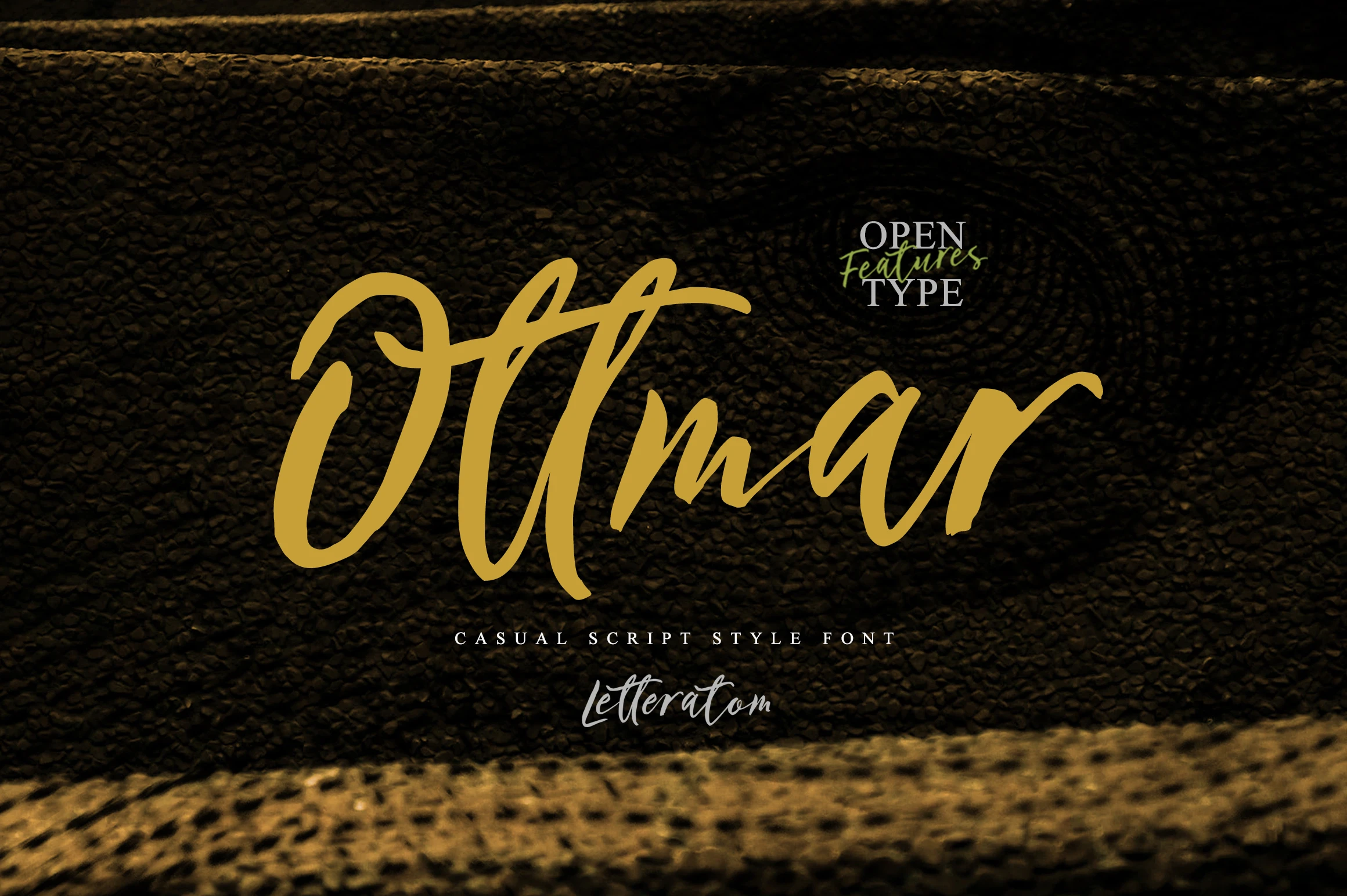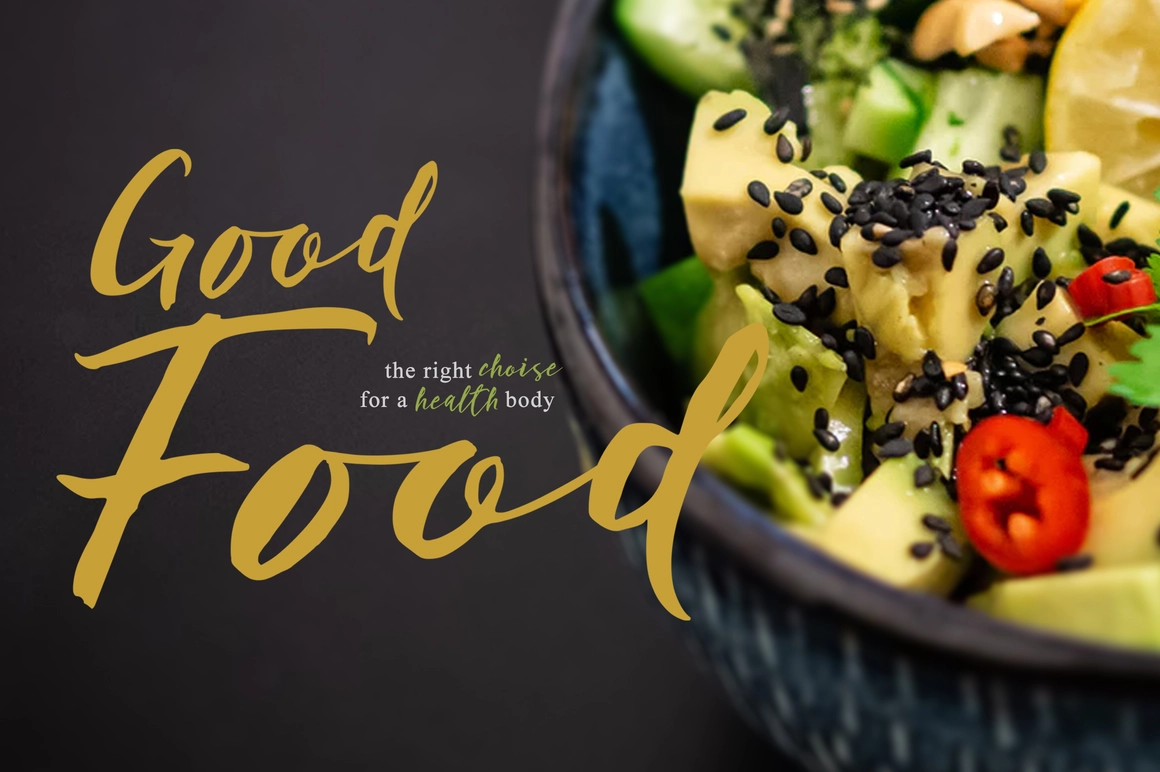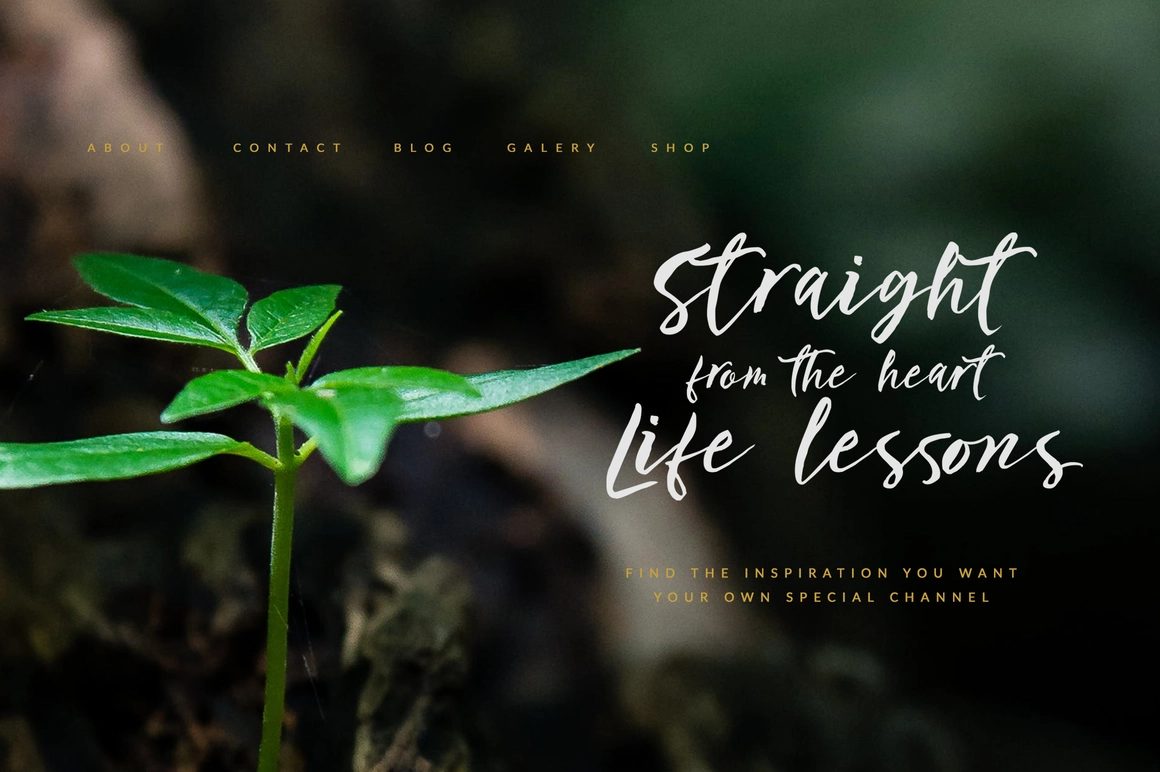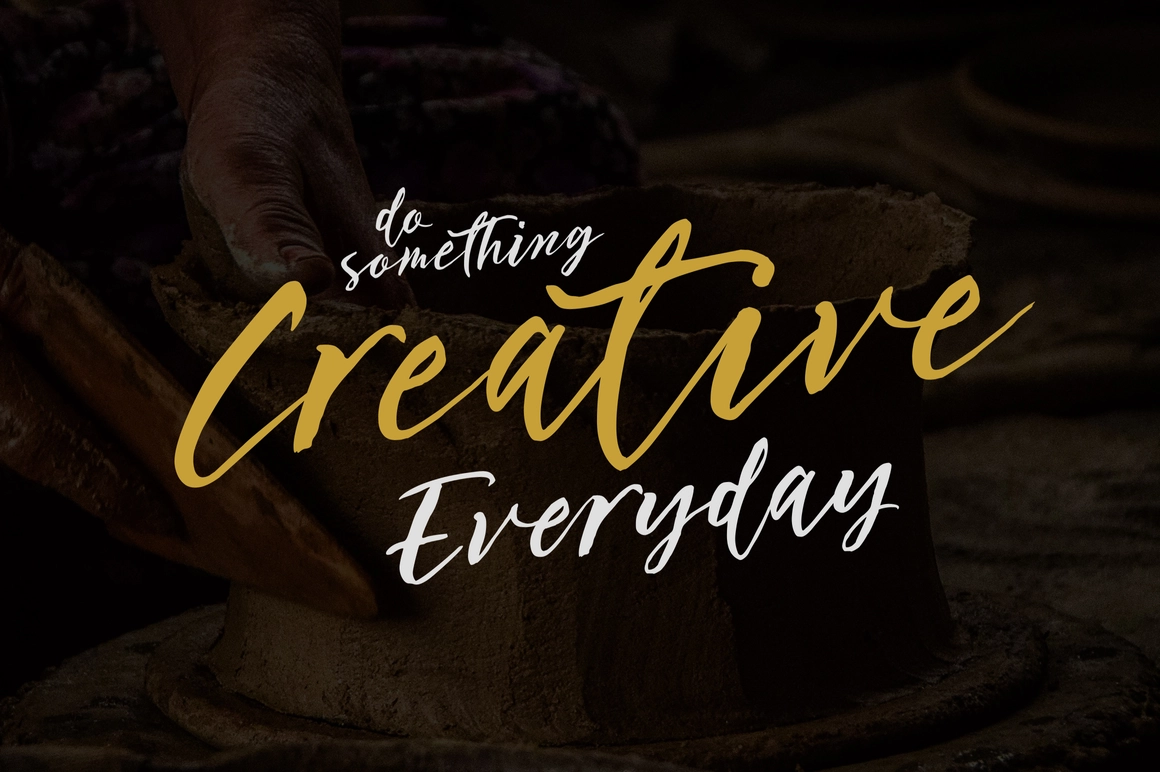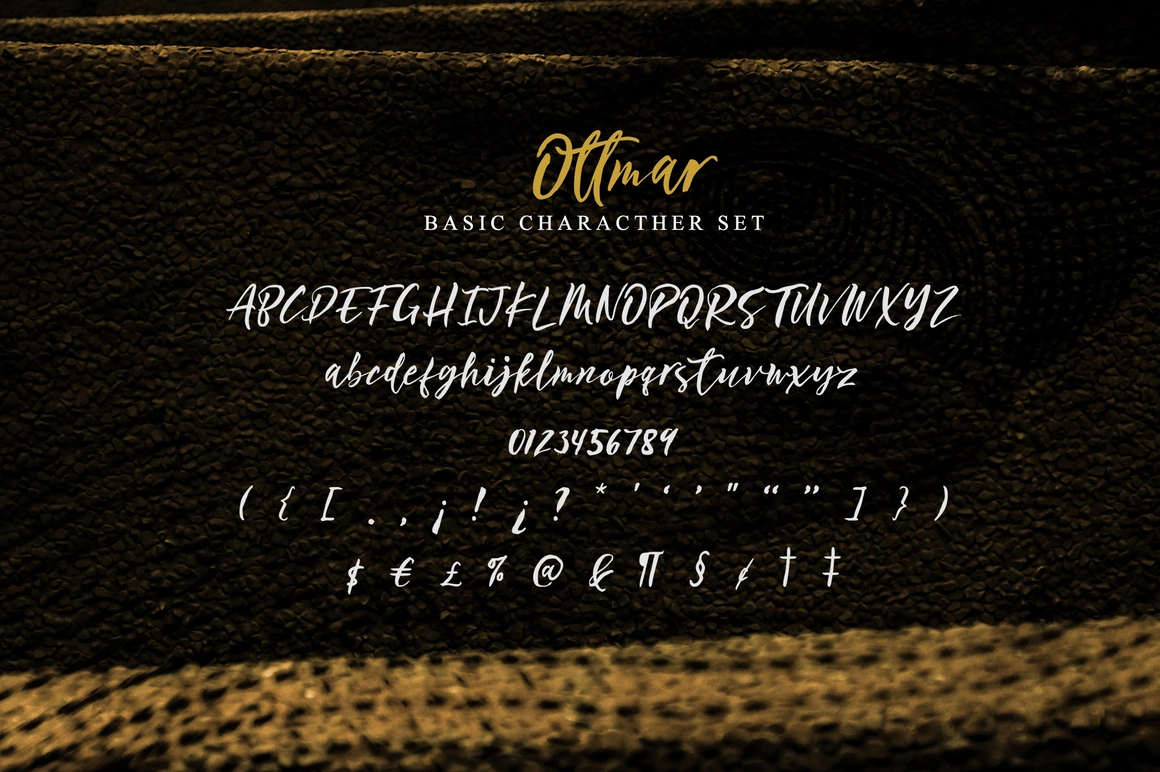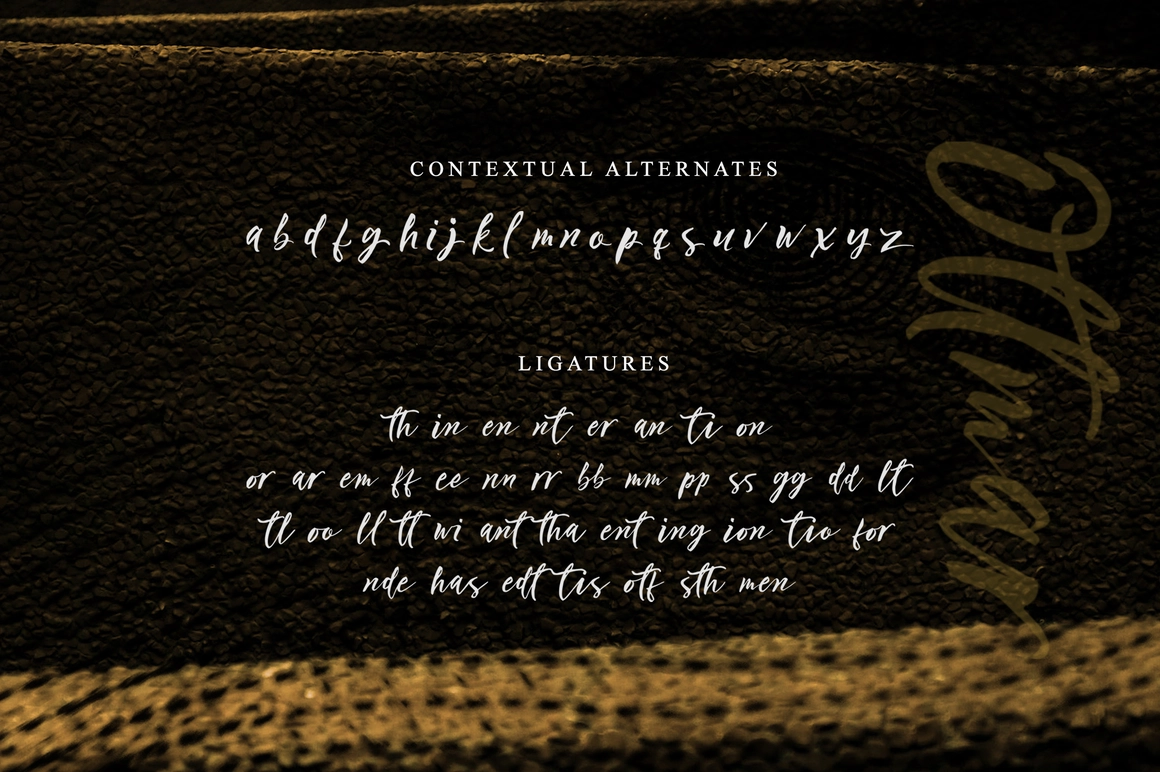
Ottmar is a bold casual script font, created using a brush that is etched on paper with care to produce a unique and organic character. With contextual alternate and ligature it will give a very special nuance if used in the design. Hope you like it!